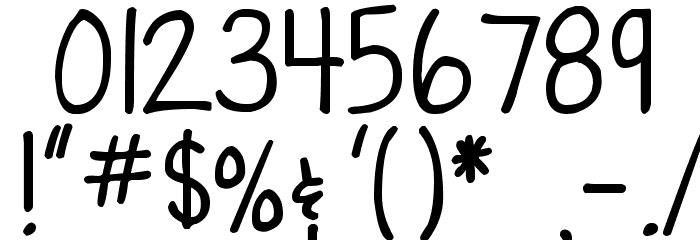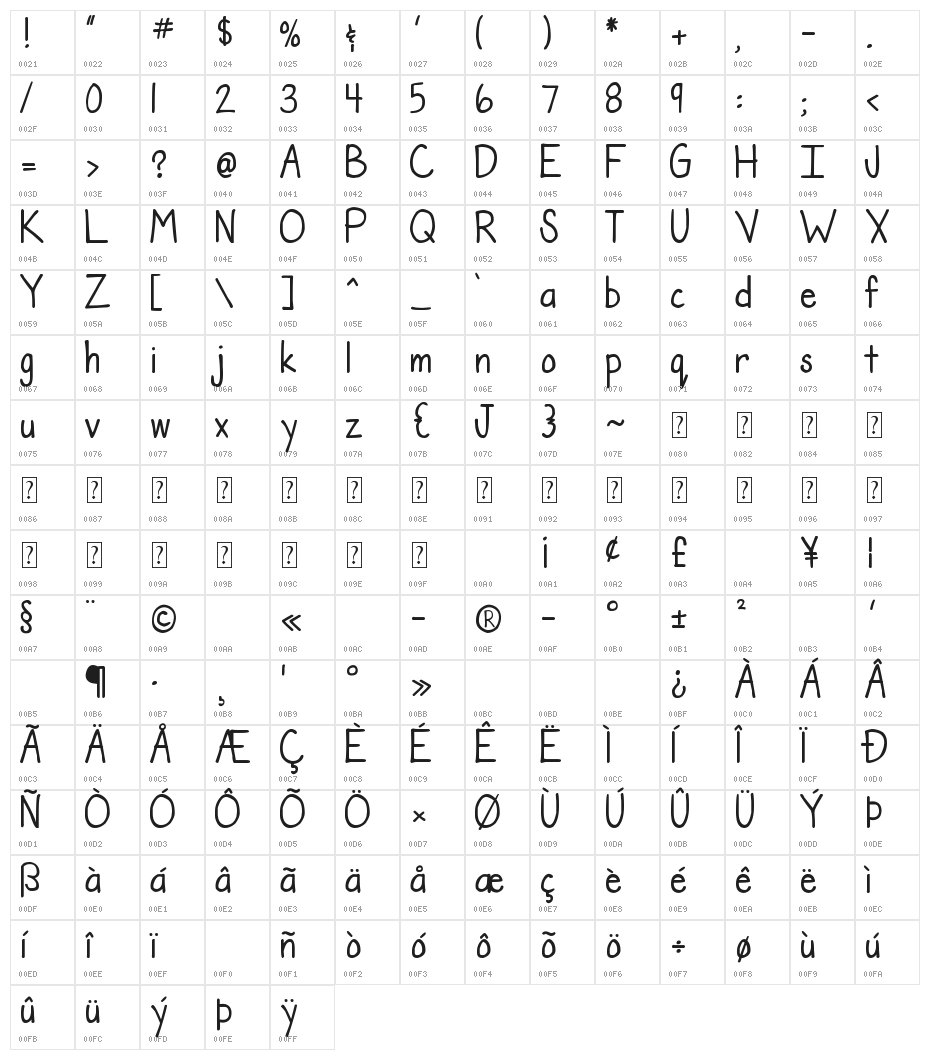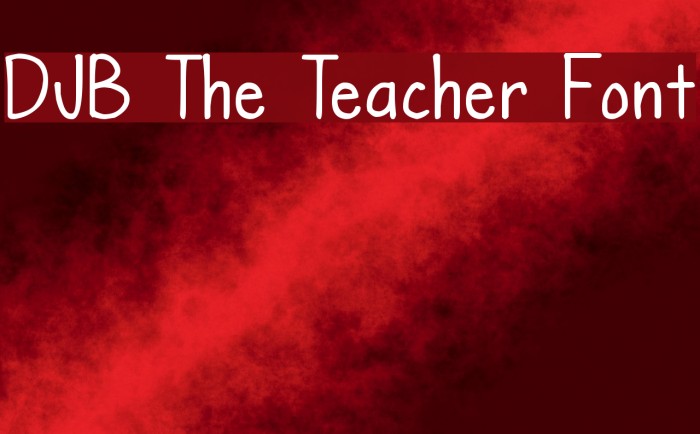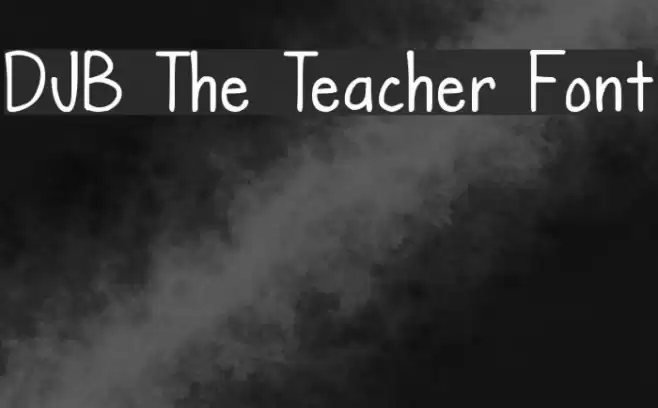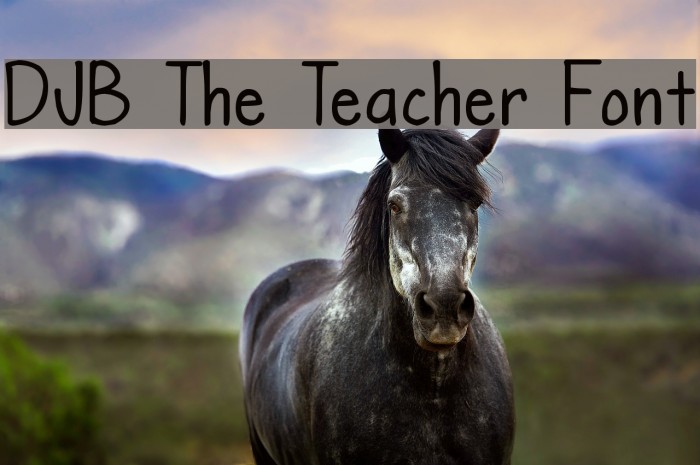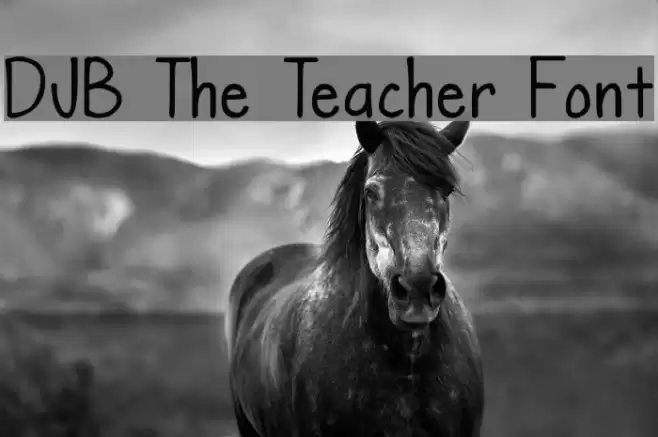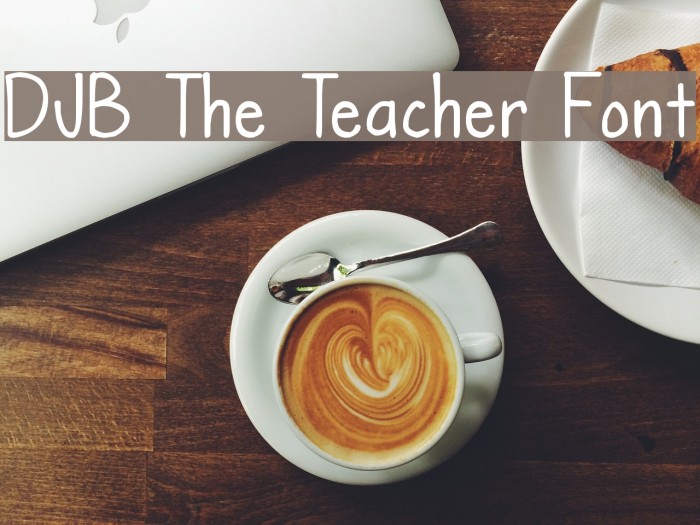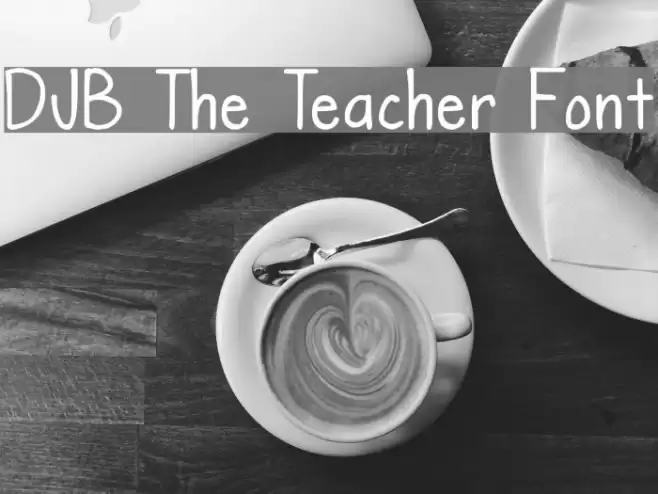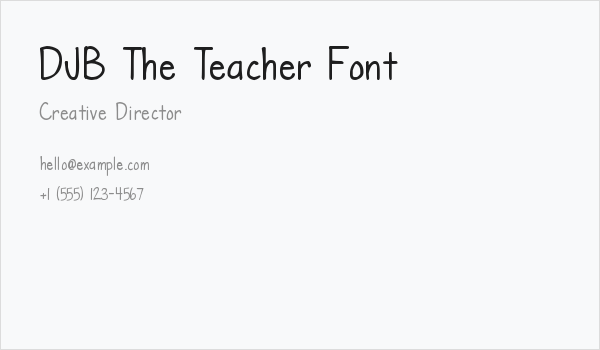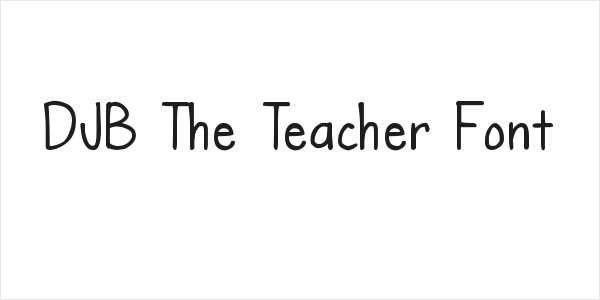
DJB The Teacher Font Font
DJB The Teacher Font Description
| Overall Style | Playful, Informal |
| Use Case | Headlines, Educational materials, Creative projects |
| Proposed Projects | Ideal for educational materials, children's books, playful invitations, and creative posters. |